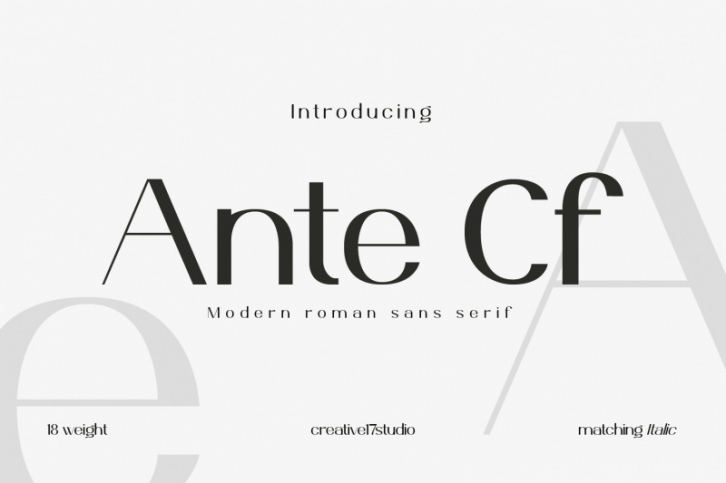
Introducing Ante Cf Fonts.
A font that's modern, clean, and bold like the roman sans serif font. This font comes in many weights up to 18 weights. The contrasts between thick and thin make this font unique.
This font is made with modern characteristics which can give a bold impression in each character, making this font suitable for corporate needs for larger business needs.
For branding purposes? Sure. This font is also made for the needs of this field, so that your branding seems more modern. And this font is also useful for news editorial purposes.
Coupled with serif types and scripts are also very suitable.
Ante cf also supports various languages, so that it can make it easier for all countries to use and language usage.